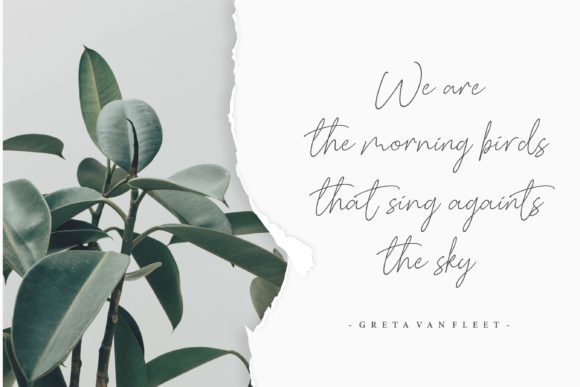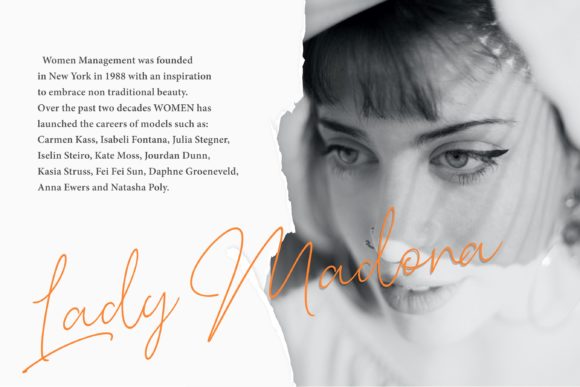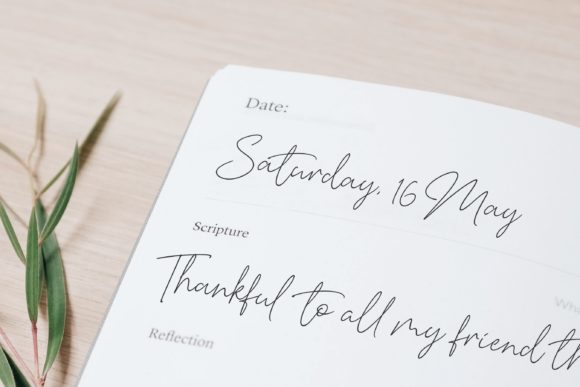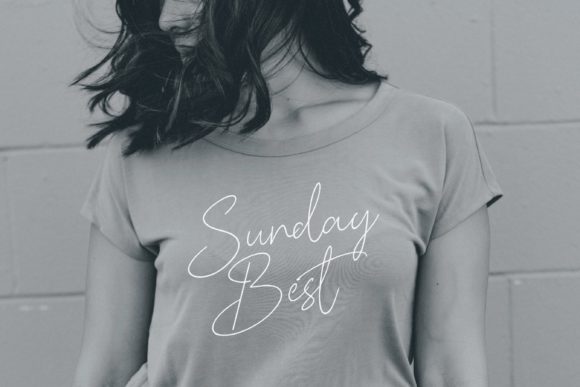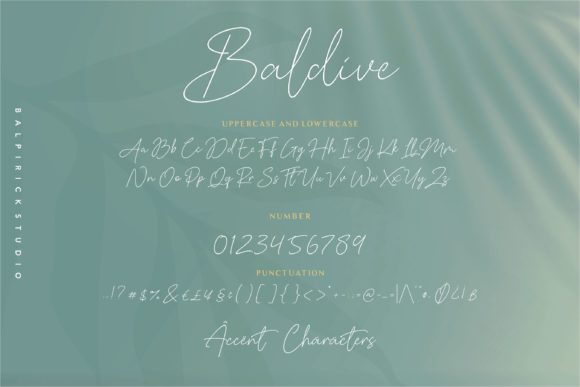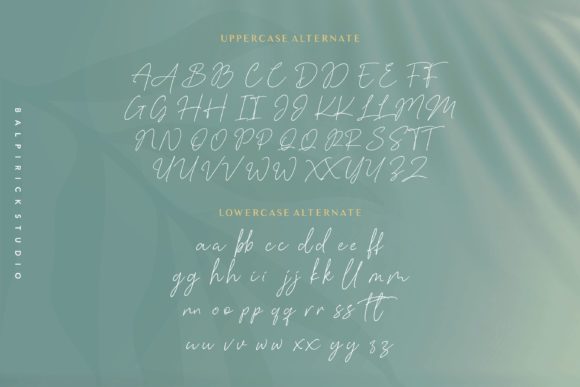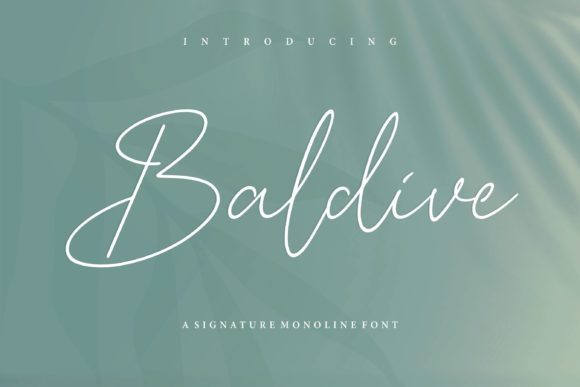
Baldive Font: Elevate Your Designs with Elegance and Friendliness
In the world of typography, fonts play a crucial role in conveying the tone and personality of a design. For designers and crafters looking for a font that exudes elegance, friendliness, and a touch of magic, Baldive Font is an excellent choice. This beautifully crafted handwritten font is designed to add a classic style to your designs while maintaining a warm and approachable feel.
The Charm of Baldive Font
Baldive Font is a meticulously created font that boasts an incredibly classic style, reminiscent of traditional handwritten scripts. Its elegant strokes and curves evoke a sense of sophistication, making it perfect for designs that require a touch of refinement. However, what sets Baldive apart is its friendly feel, which prevents it from feeling too formal or stuffy. This balance of elegance and approachability makes Baldive an incredibly versatile font.
Perfect for Original and Outstanding Designs
Whether you’re a designer looking to create stunning visual content or a crafter seeking to add a personal touch to your projects, Baldive Font is the perfect choice. Its unique blend of classic and friendly elements allows you to create original and outstanding designs that stand out from the crowd. From wedding invitations and branding materials to digital content and craft projects, Baldive Font can elevate your designs to the next level.
Key Features of Baldive Font
• Magical Handwritten Style: Baldive Font features a beautifully crafted handwritten style that adds a touch of magic to your designs.
• Elegant and Friendly: This font strikes the perfect balance between elegance and friendliness, making it suitable for a wide range of design projects.
• Classic Style: With its classic strokes and curves, Baldive Font is perfect for designs that require a traditional feel.
• Versatile: Use Baldive Font for various design projects, from digital content to print materials, and craft projects.
Tips for Using Baldive Font
To get the most out of Baldive Font, here are some tips for using it effectively in your designs:
• Pair with Other Fonts: Experiment with pairing Baldive Font with other fonts to create a unique and visually appealing combination.
• Adjust Font Sizes: Play with different font sizes to add hierarchy and emphasis to your designs.
• Use in Branding Materials: Take advantage of Baldive Font’s elegant and friendly feel by using it in branding materials, such as logos and business cards.
Who Can Benefit from Baldive Font?
Baldive Font is an excellent choice for a variety of designers and crafters, including:
• Graphic Designers: Add a touch of elegance and friendliness to your visual content with Baldive Font.
• Digital Content Creators: Elevate your digital content, such as blog posts and social media graphics, with this beautiful font.
• Crafters: Use Baldive Font to add a personal touch to your craft projects, such as handmade cards and invitations.
• Branding Experts: Create stunning branding materials, such as logos and business cards, with Baldive Font.
Font Name Baldive Font
Author Balpirick
In conclusion, Baldive Font is a magical handwritten font that offers the perfect blend of elegance and friendliness. Its classic style and versatile nature make it an excellent choice for designers and crafters looking to create original and outstanding designs. With its wide range of applications and ease of use, Baldive Font is sure to become a staple in your design toolkit.